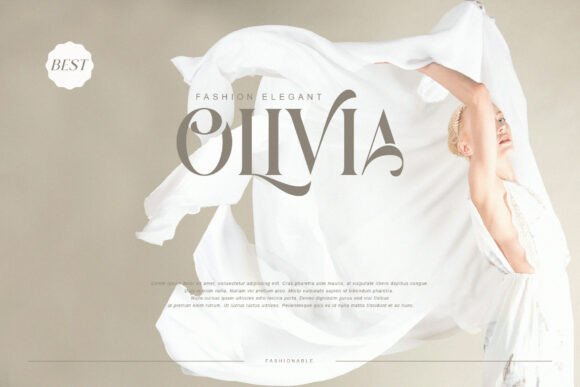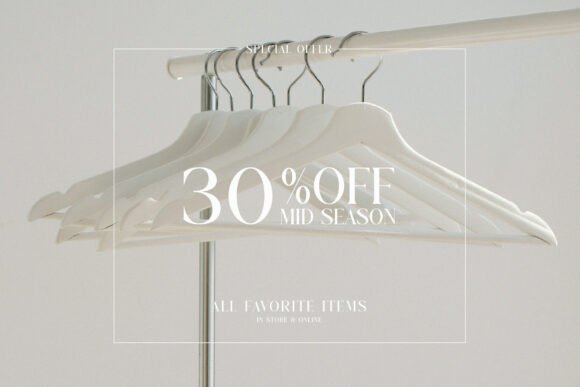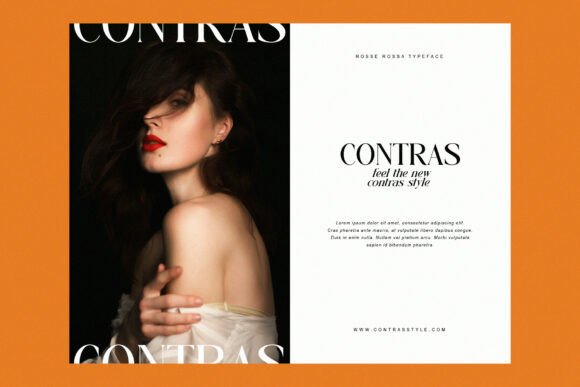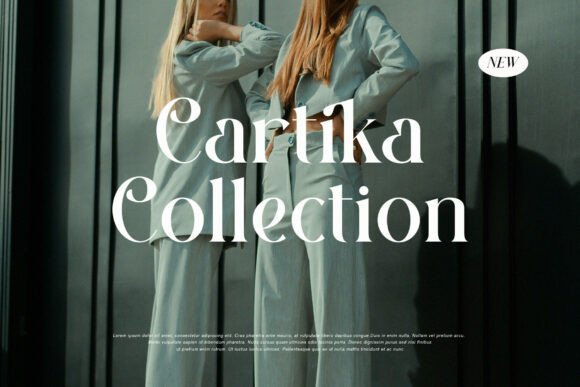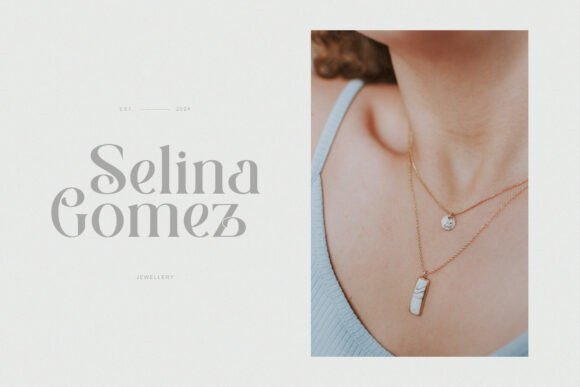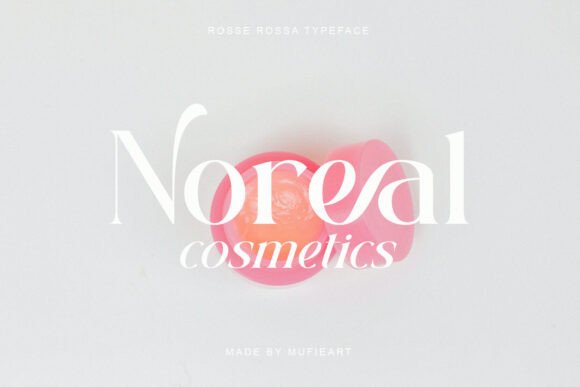
Introduction to Rosse Rossa Font
As designers, we’ve all been there – staring at a blank canvas, searching for the perfect font to bring our creative vision to life. And then, it happens – you stumble upon a font that makes your heart skip a beat, like a delicate floral arrangement or a soft, watercolor painting. For many of us, that font is Rosse Rossa Font, a stunning serif typeface that exudes elegance and sophistication.
With its unique blend of classical refinement and lyrical, sweeping curves, Rosse Rossa Font is a design resource that stands out from the crowd. Its high-contrast letterforms, dramatic loops, and teardrop-shaped apertures create a visual masterpiece that’s as beautiful as it is functional. Whether you’re working on a high-end floral design project, a romantic wedding invitation, or a boutique cosmetic branding campaign, Rosse Rossa Font delivers a sense of handcrafted prestige and polished, effortless beauty that’s simply irresistible.
Key Features of Rosse Rossa Font
- High-quality design resource with a unique, creative style
- Designed to be highly versatile and suitable for a wide range of creative projects, from logos to typography
- Available in a single weight, making it easy to use in various design contexts
Honest Review: Rosse Rossa Font
I recently stumbled upon the Rosse Rossa Font, and I must say it’s been a game-changer for my creative projects. The font’s free download made it an instant favorite among designers, and I can see why.
- What works well: ✨ The font’s unique design and high-quality aesthetic make it perfect for branding and visual identity projects.
- ✨ The font is highly customizable, allowing designers to adjust the spacing and alignment to suit their needs.
- ⚠️ The font’s transparent background can sometimes cause issues with readability, especially when used on dark backgrounds.
- ⚠️ The font’s large file size may cause compatibility issues with older software or operating systems.
Overall, I’m impressed with the Rosse Rossa Font. Its unique design and high-quality aesthetic make it a valuable addition to any designer’s toolkit. While it’s not perfect, its free download and customization options make it an excellent resource for designers working on creative projects.
How to Use Rosse Rossa Font
The Rosse Rossa Font is a versatile, high-quality design resource perfect for creative projects. Its unique aesthetic and transparent background make it an ideal choice for designers looking to add a touch of elegance to their work.
To get the most out of the Rosse Rossa Font, experiment with different font sizes, colors, and styles. Combine the font with other design elements, such as graphics and images, to create a visually appealing composition.
The Rosse Rossa Font is perfect for a variety of creative projects, including:
– Branding and marketing materials
– Digital publications and ebooks
– Social media graphics and advertisements
– Print materials and business cards
Alternatives to Rosse Rossa Font
Comparison: Great Vibes has a more traditional, vintage feel compared to the modern, playful vibe of Rosse Rossa Font.
Carolyna Pro is a high-quality, modern sans-serif font perfect for creating a design resource for creative projects. It features a transparent background and is available for free download. Carolyna Pro is ideal for use in logos, branding, and other commercial designs.
Is the Rosse Rossa Font compatible with different font sizes and styles?
Yes, the Rosse Rossa Font is highly scalable and can be used in a variety of font sizes and styles. It’s designed to be legible and clear, even at small font sizes, making it perfect for use in headings, titles, and body text. You can also experiment with different font styles, such as bold, italic, and underlined, to add emphasis and create visual interest in your design.